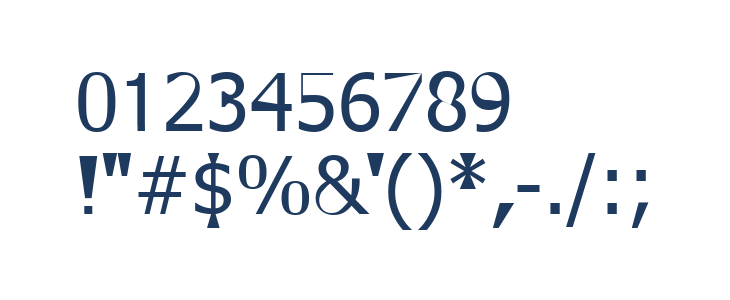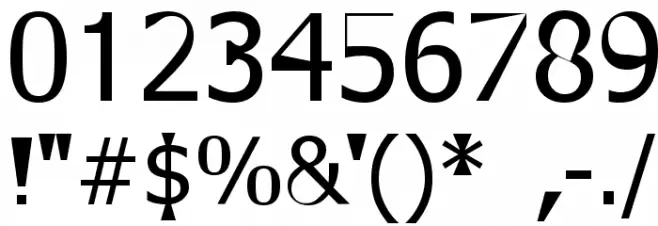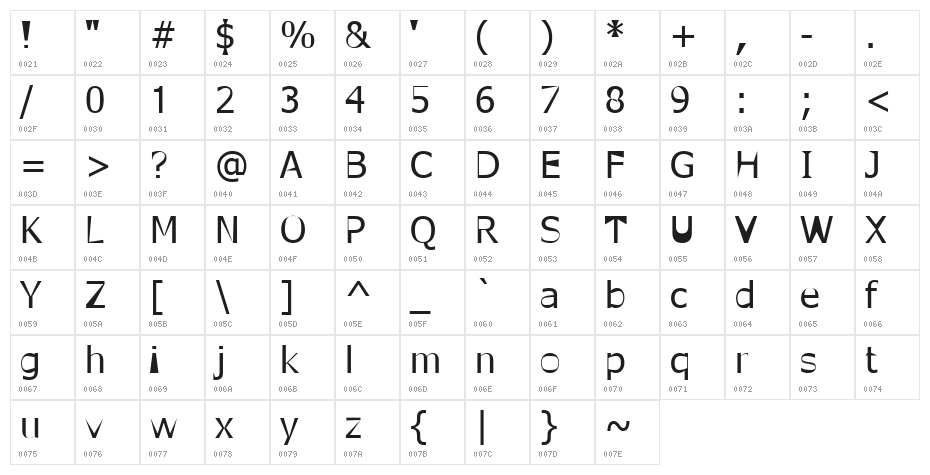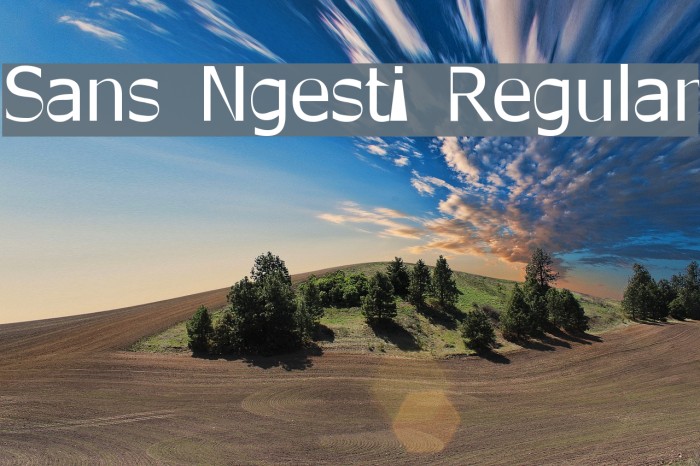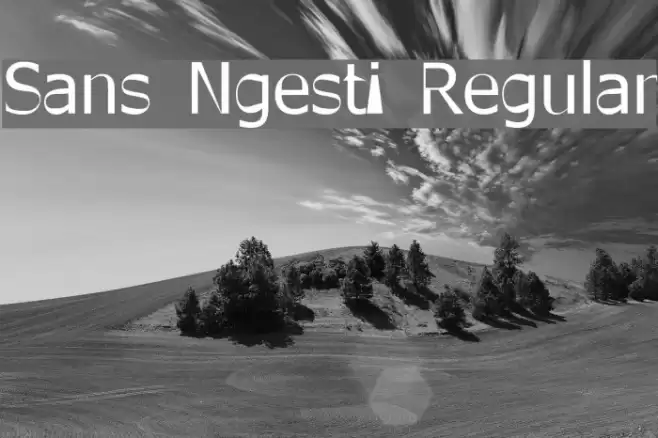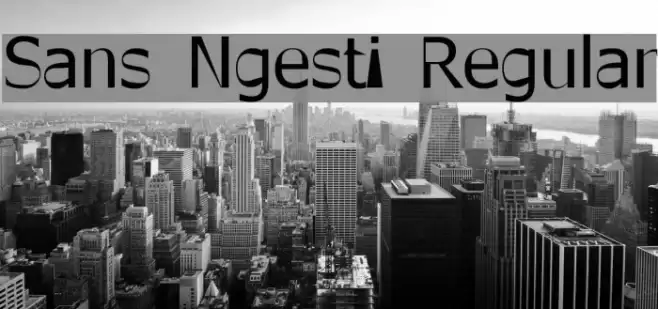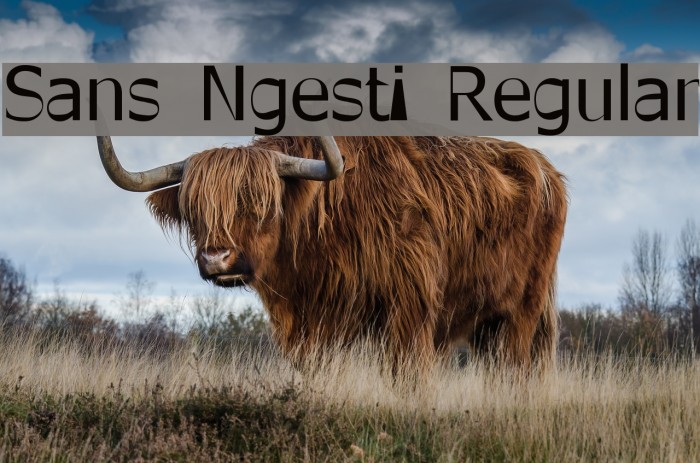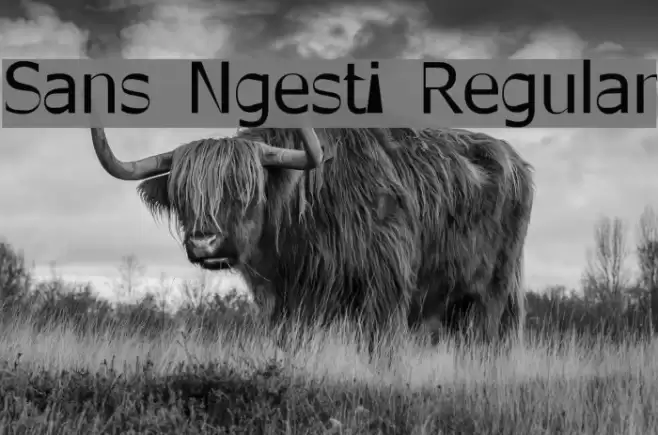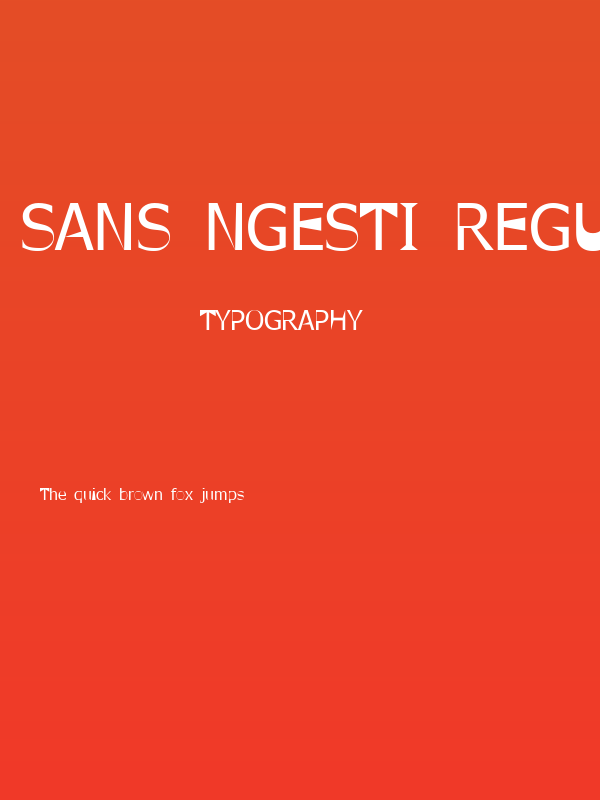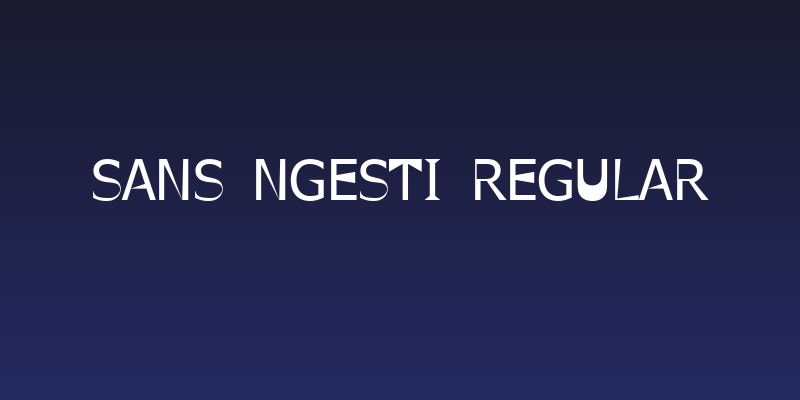
Sans Ngesti Regular Font
Sans Ngesti Regular Description
This typeface showcases a clean and modern sans-serif style with a balanced and uniform appearance. The characters are well-proportioned with a consistent stroke width, contributing to a sleek and professional look. The uppercase letters are bold and assertive, while the lowercase letters maintain a harmonious flow. The numerals are clear and easily distinguishable, making them suitable for various applications. Special characters are designed with precision, ensuring readability and aesthetic appeal. Overall, this font exudes a contemporary vibe, making it versatile for both digital and print media.
Use CaseHeadlines, Body text, Logos
Proposed ProjectsIdeal for branding, corporate materials, web design, and editorial layouts.